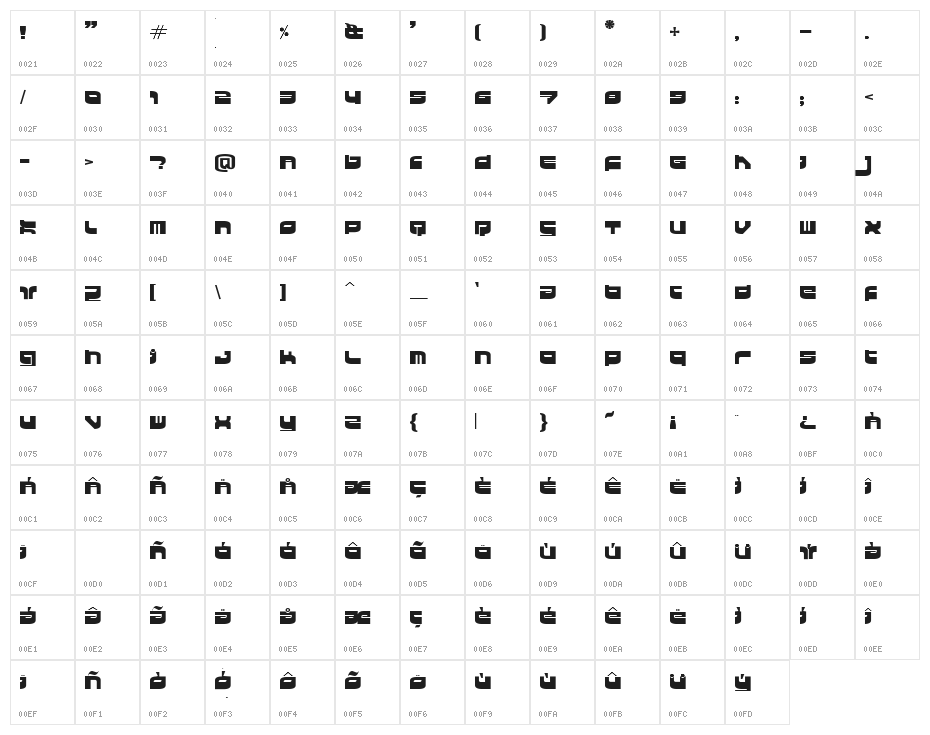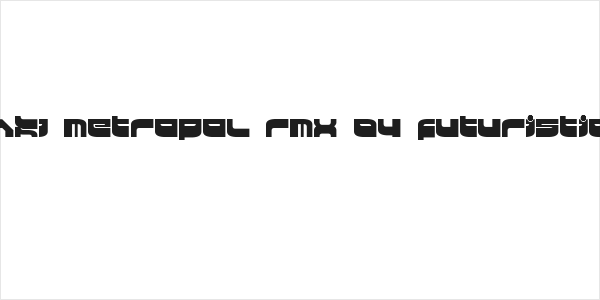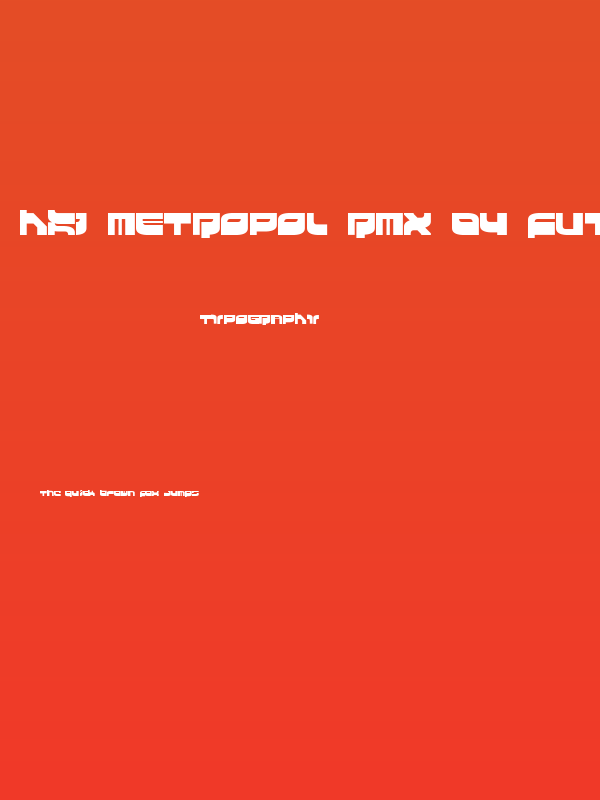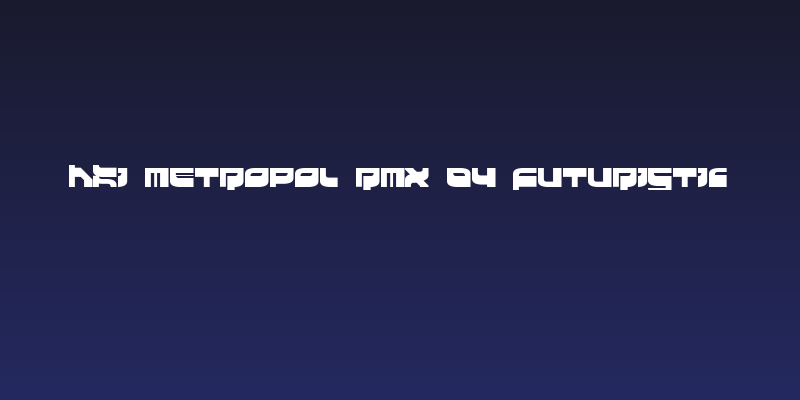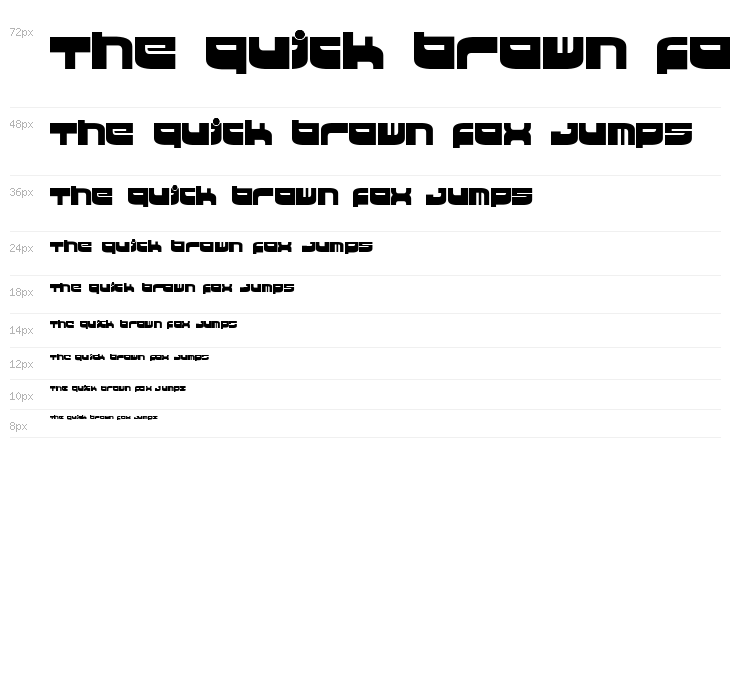
HKI metropol rmx 04 futuristic Font
HKI metropol rmx 04 futuristic Description
This font presents a bold, futuristic design with a strong geometric influence. Each character is crafted with sharp angles and a blocky structure, creating a sense of modernity and technological advancement. The uppercase and lowercase letters maintain a consistent style, with minimal curves and a focus on straight lines and right angles. The numerals and special characters follow the same design principles, ensuring uniformity across all elements. This font's unique style makes it ideal for projects that require a modern, cutting-edge appearance.
| Proposed Projects | Ideal for technology branding, sci-fi movie posters, video game titles, and modern advertising campaigns. |